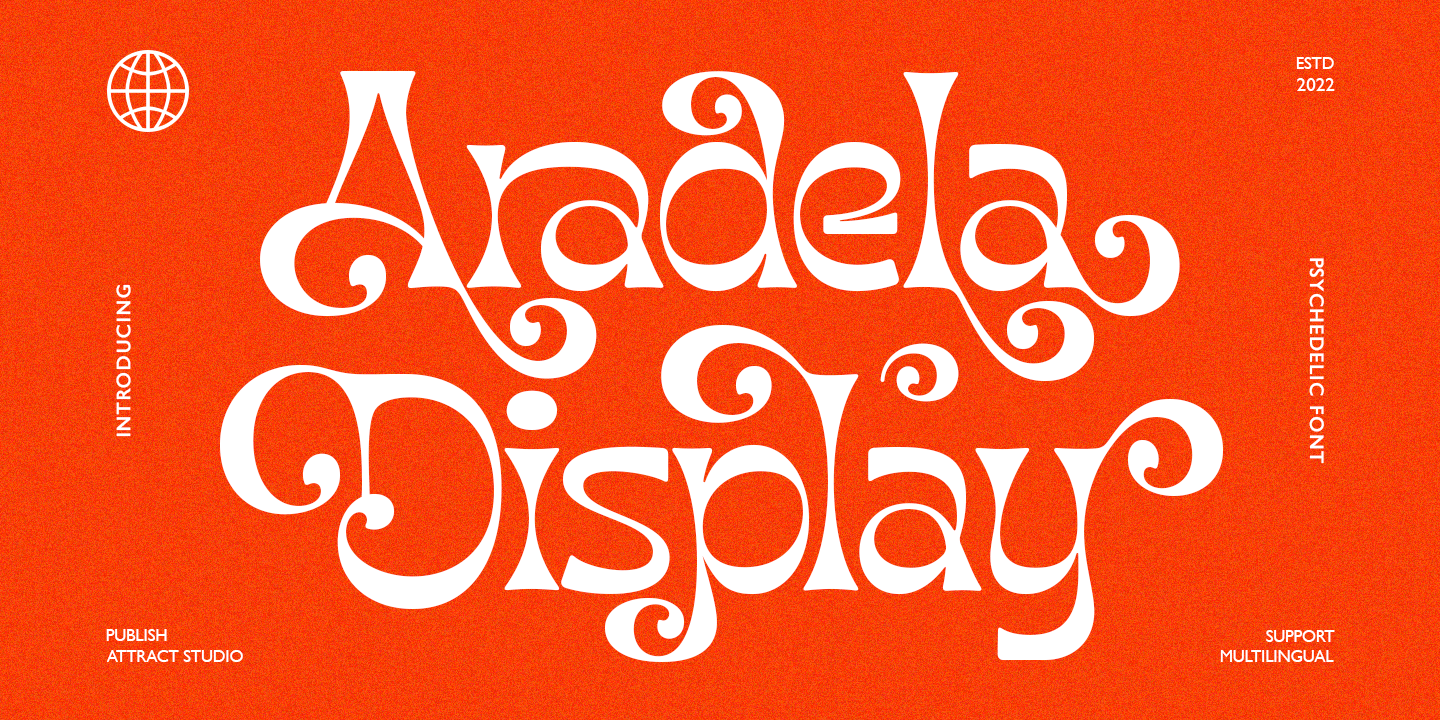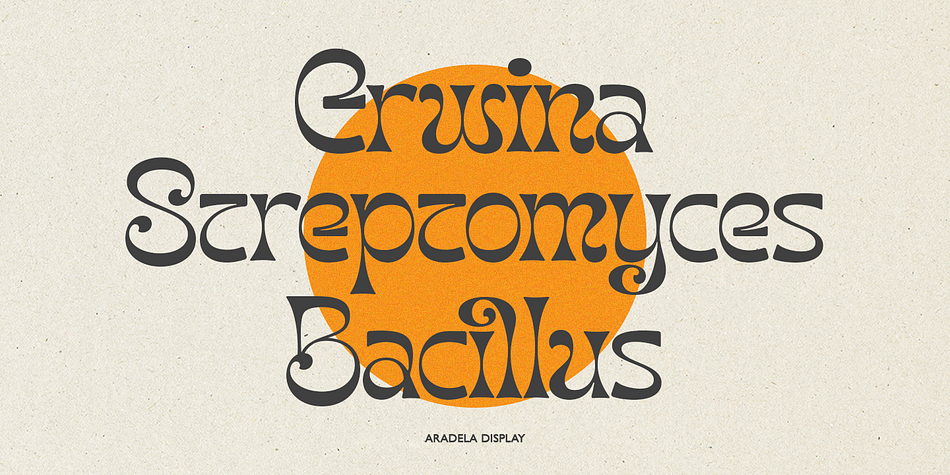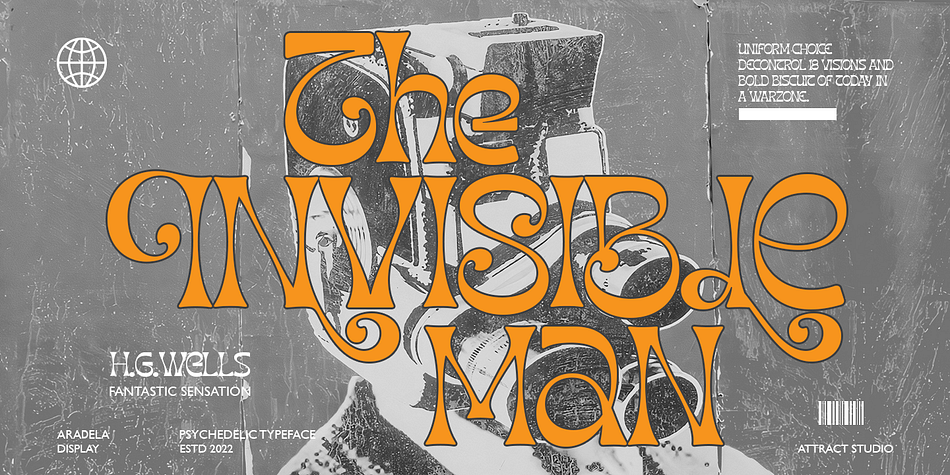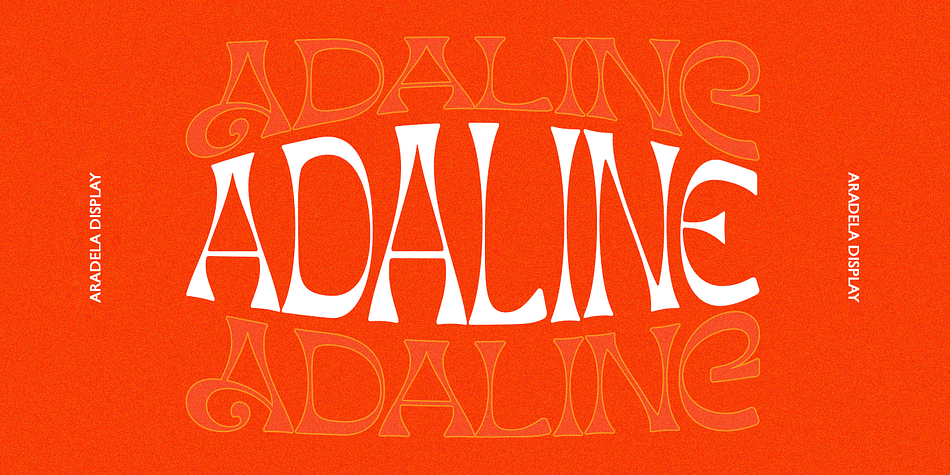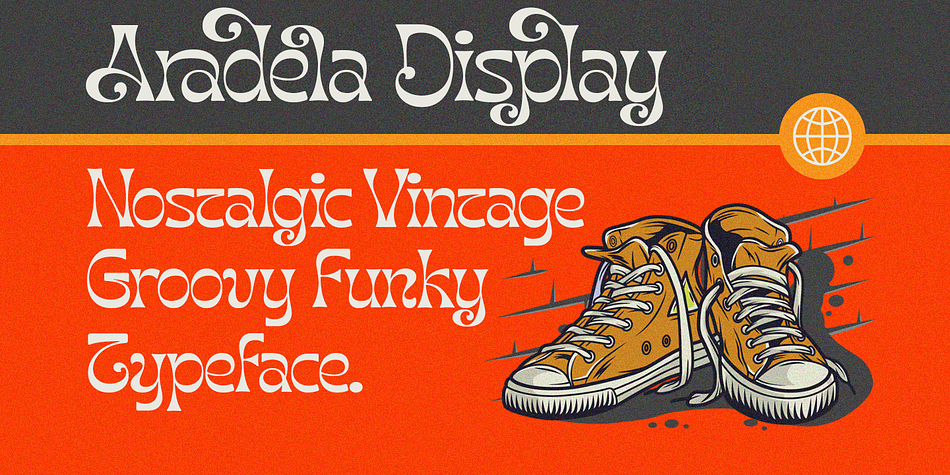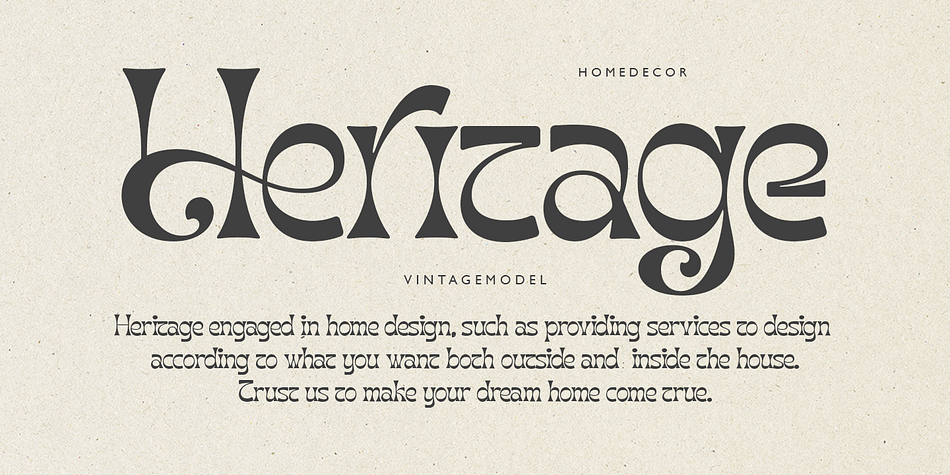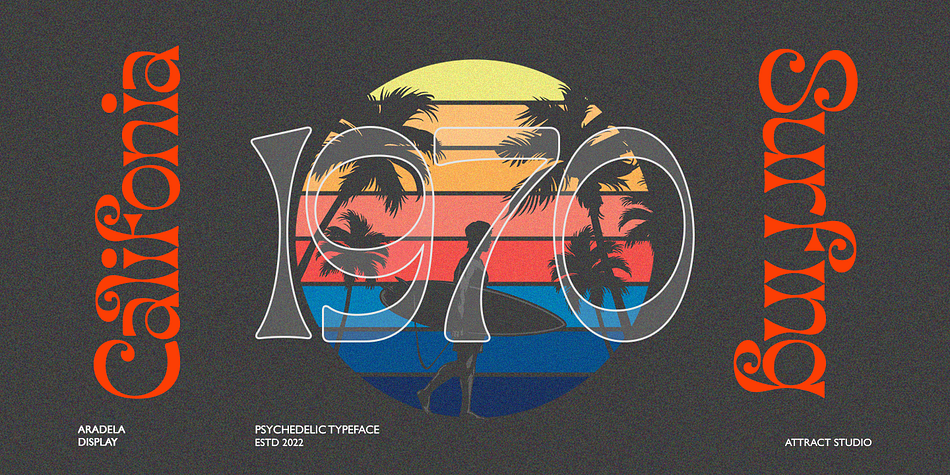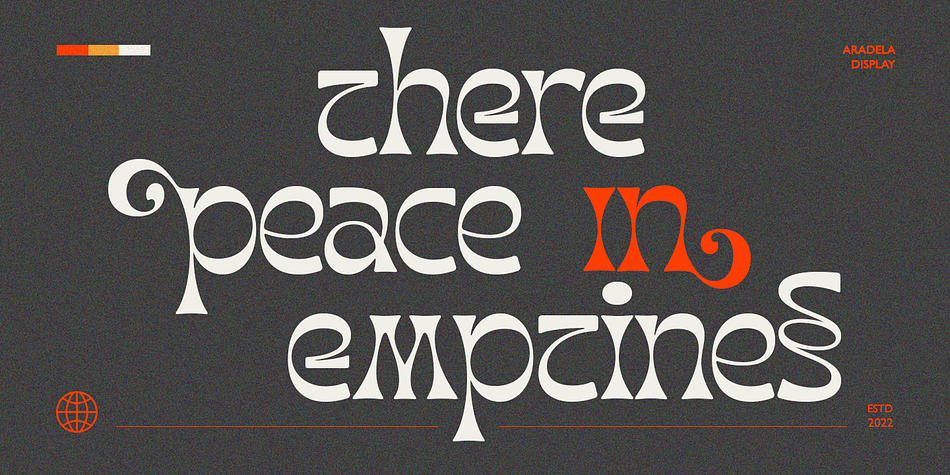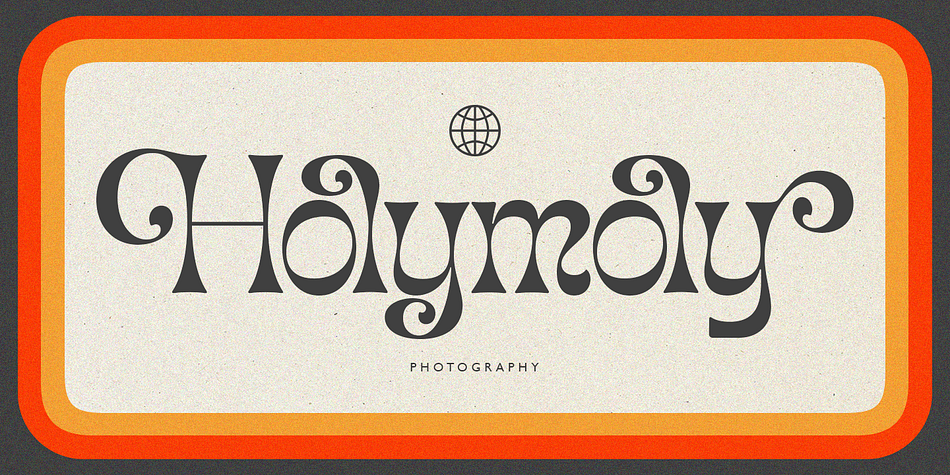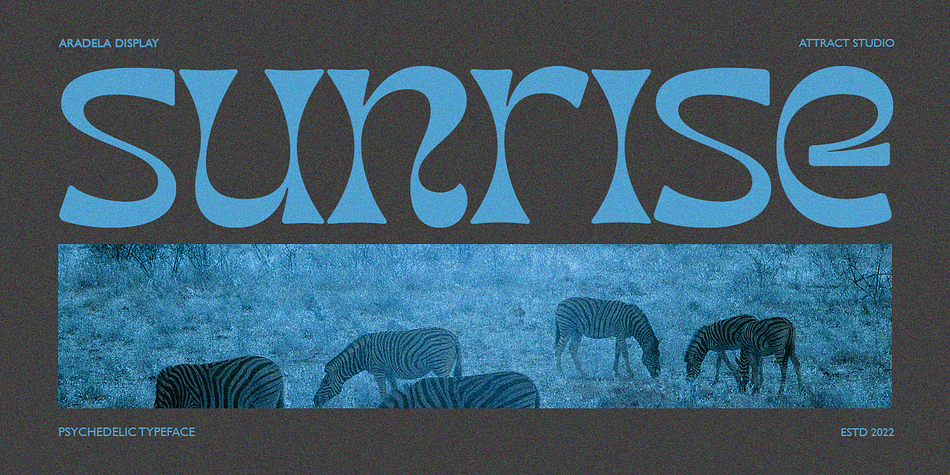
Aradela Display
Aradela Display is a retro font family published by Attract Studio.
Aradela Display is a psychedelic style font with unique ornamental characteristics that will set your project apart from the rest.
Aradela Display comes using the opentype feature to access ligatures and alternates, each glyph is created to create harmony. It will brighten up your work, for sure.